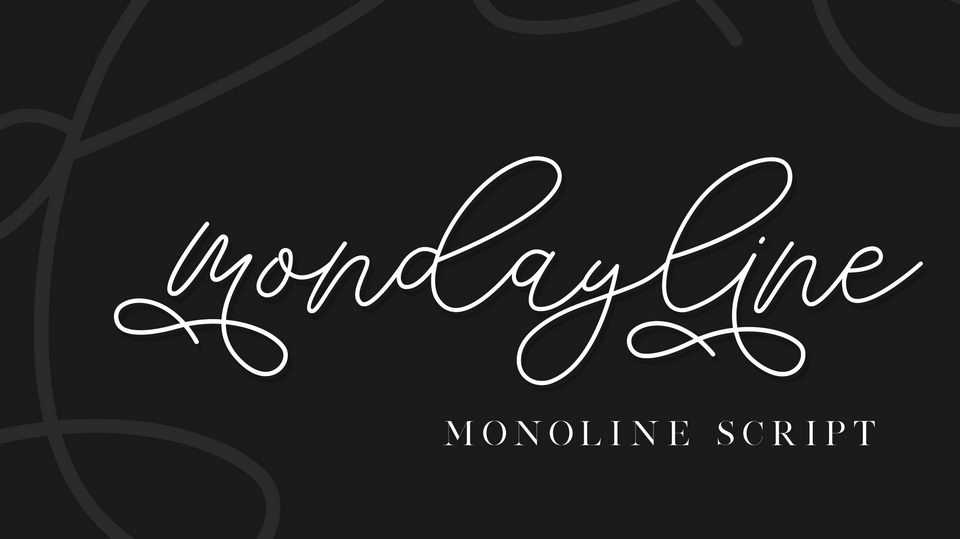
Download Mondayline font, a stylish handwritten script with signature style. This beautiful script font offers your personal touch to your latest art project with elegant, classy and modern look.
Designer: Fanastudio